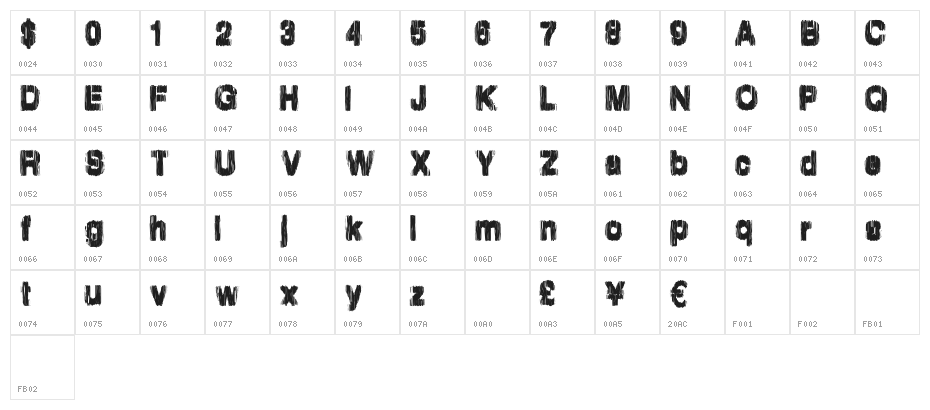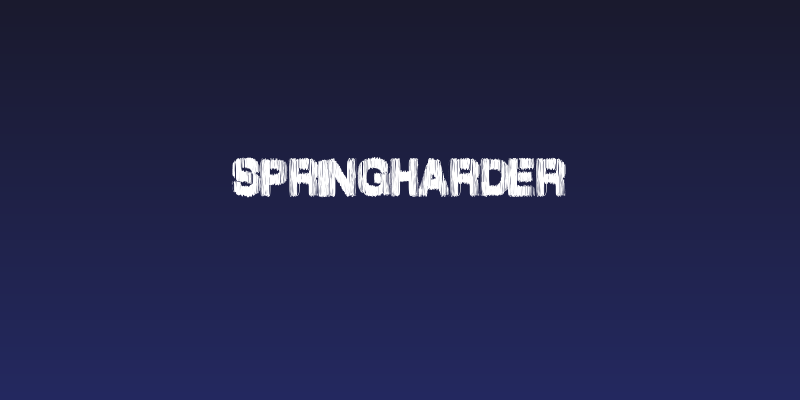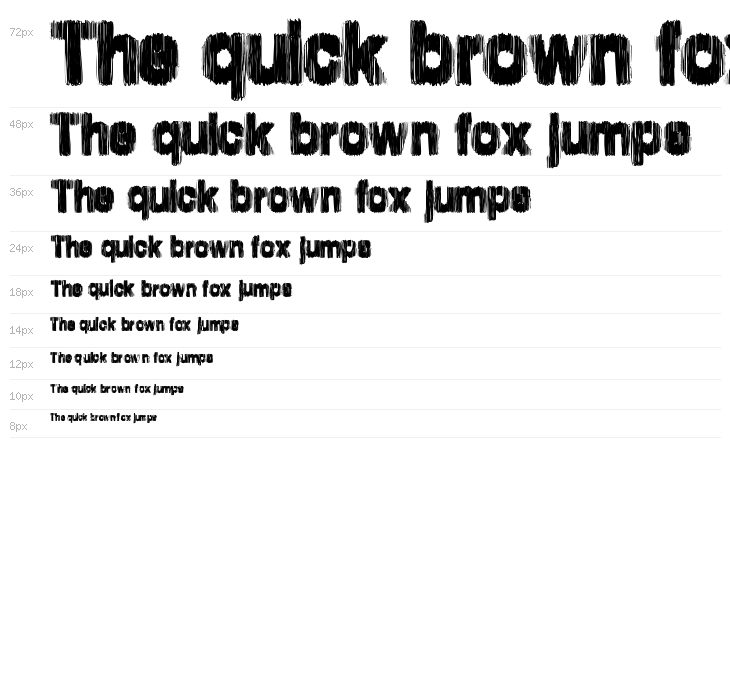
SpringHarder Font
SpringHarder Description
This font features a bold and textured style, with each character appearing as if it has been hand-drawn with a brush. The strokes are uneven, creating a dynamic and energetic appearance. The uppercase and lowercase letters maintain a consistent height, while the numbers and special characters follow the same artistic pattern. The overall look is rugged and artistic, making it stand out in any design. The font's unique texture gives it a sense of movement and depth, ideal for projects that require a bold statement.
Proposed ProjectsIdeal for posters, album covers, artistic branding, and any project needing a bold, creative touch.